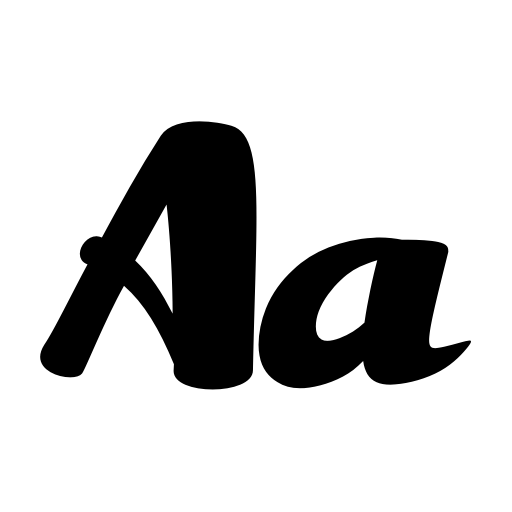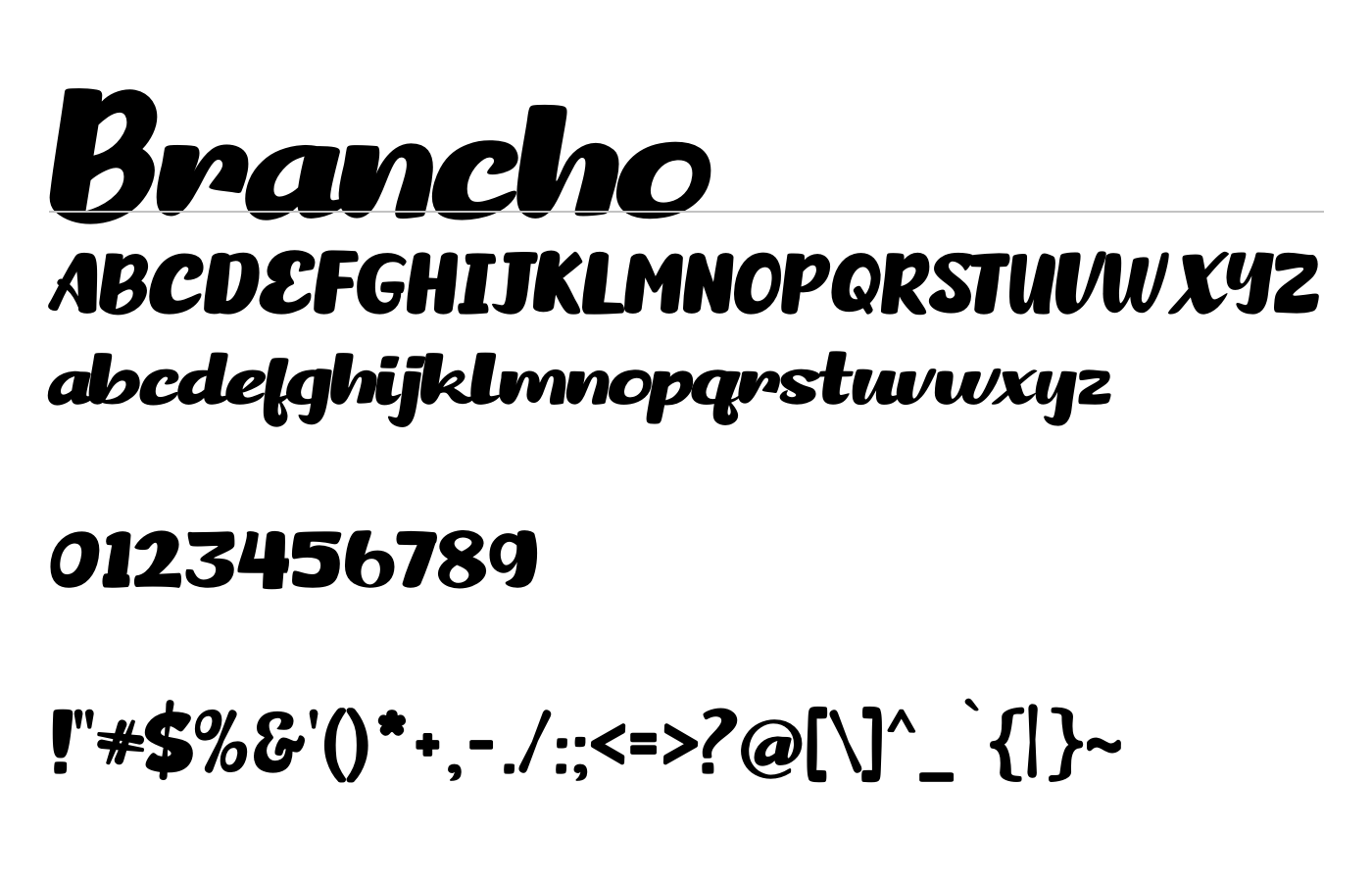
Brancho is a bold, playful script font with a smooth, rounded stroke style that brings a friendly and energetic vibe. Its casual yet confident letterforms make it perfect for creative branding, fun headlines, and lively packaging designs where an approachable and vibrant personality is desired. This font works well in projects seeking a youthful and dynamic feel that captures attention with its unique, hand-drawn charm.
Brancho Font
About Brancho Font